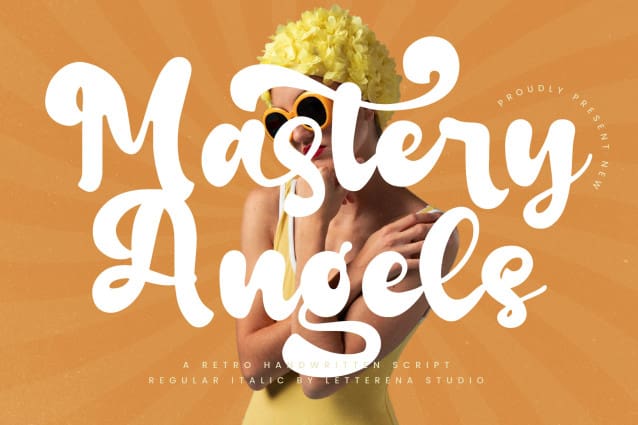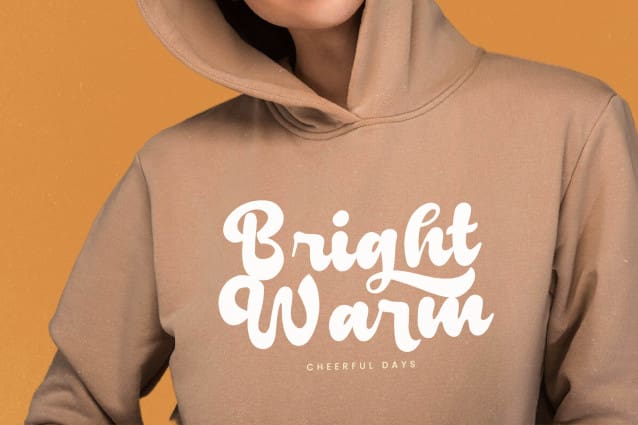
Mastery Angels Font
Mastery Angels Font – Retro Handwritten Script , from Letterena, is a Luxury Script font, suitable for any projects such as: logos, branding projects, homeware designs, product packaging, mugs, quotes, posters, shopping bags, t-shirts, book covers, name card, invitation cards, greeting cards, label, photography, watermark, special events, and all your other luxury and beautiful projects that need a Luxury Script taste.